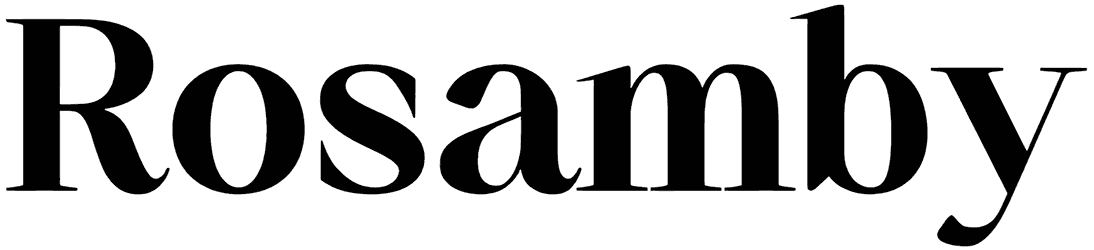
Rosamby Font
So you’re here again. What happened this time? Someone asked you for another first-rate business card design again? It’s a good thing you know where you should be visiting when some high-end project like that comes up; we’ll give you this serif font.
Let’s see! What do you think about Rosamby? Our friends sure made it look so sophisticated in its classic appeal. That’s the kind of thing that comes in handy for creating fashion designer business cards, restaurant website logos, and more.